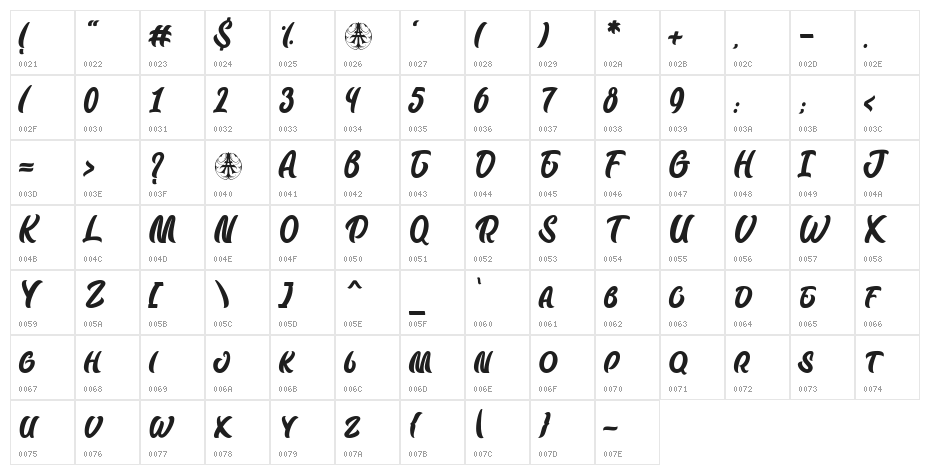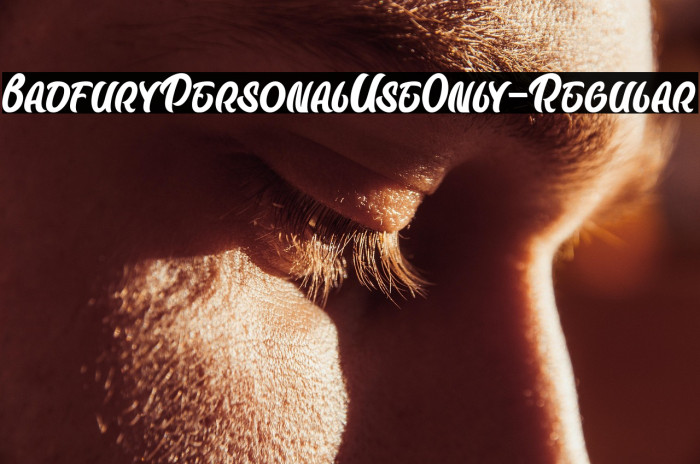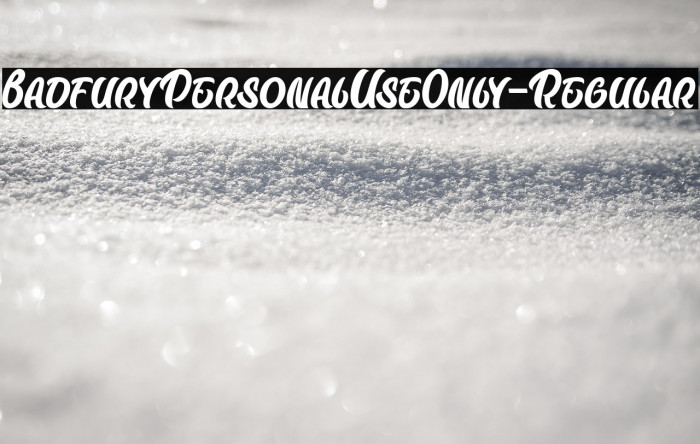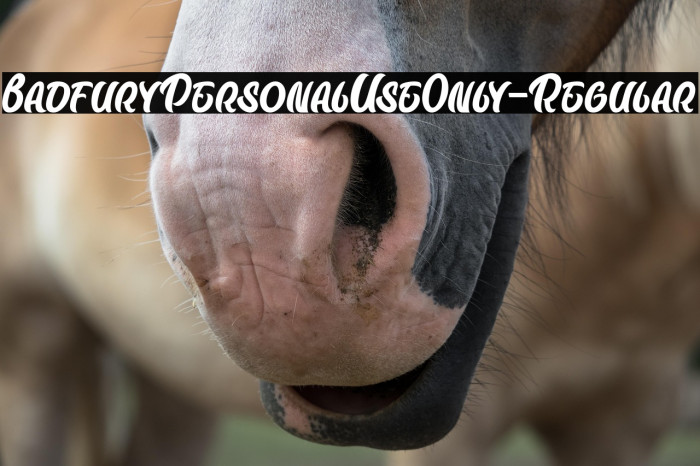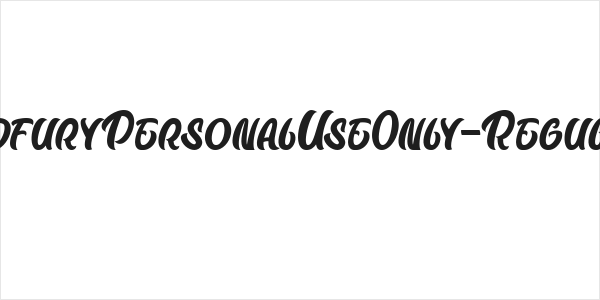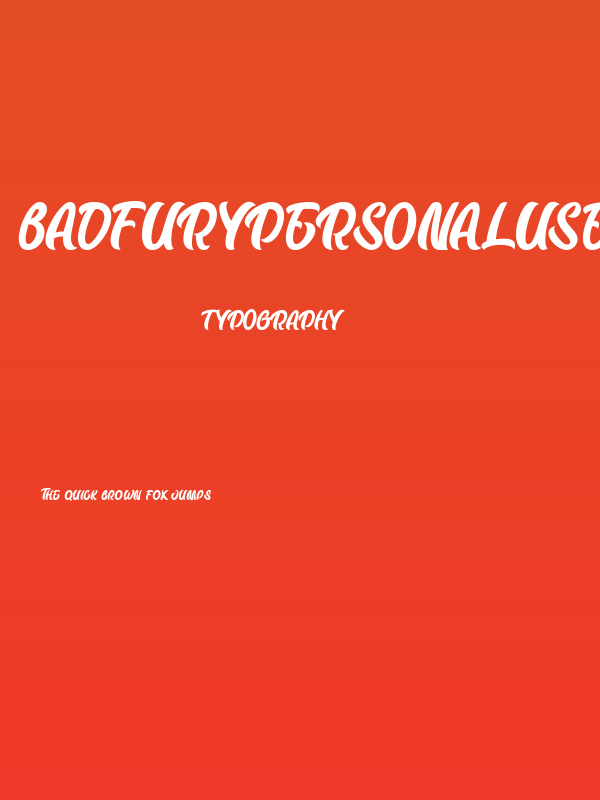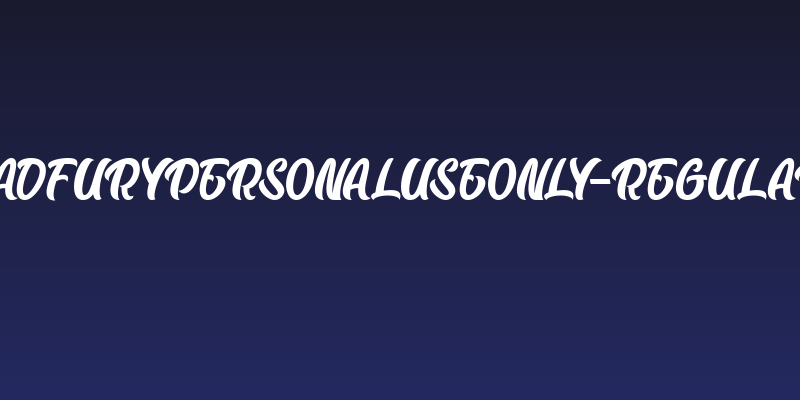
BadfuryPersonalUseOnly-Regular Font
BadfuryPersonalUseOnly-Regular Description
This font features a bold and expressive script style with a strong presence. The characters are designed with a flowing, cursive appearance, giving it a dynamic and energetic feel. The strokes are thick and consistent, providing a sense of strength and confidence. The uppercase and lowercase letters maintain a cohesive style, with smooth curves and elegant swashes. The numerals and special characters are equally bold, ensuring readability and visual impact. This font is ideal for projects that require a touch of flair and creativity.
| Use Case | Logos, Headlines, Posters |
| Proposed Projects | Ideal for branding, logos, headlines, posters, and creative design projects. |